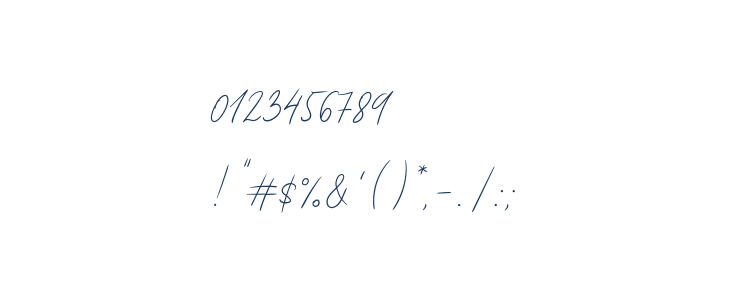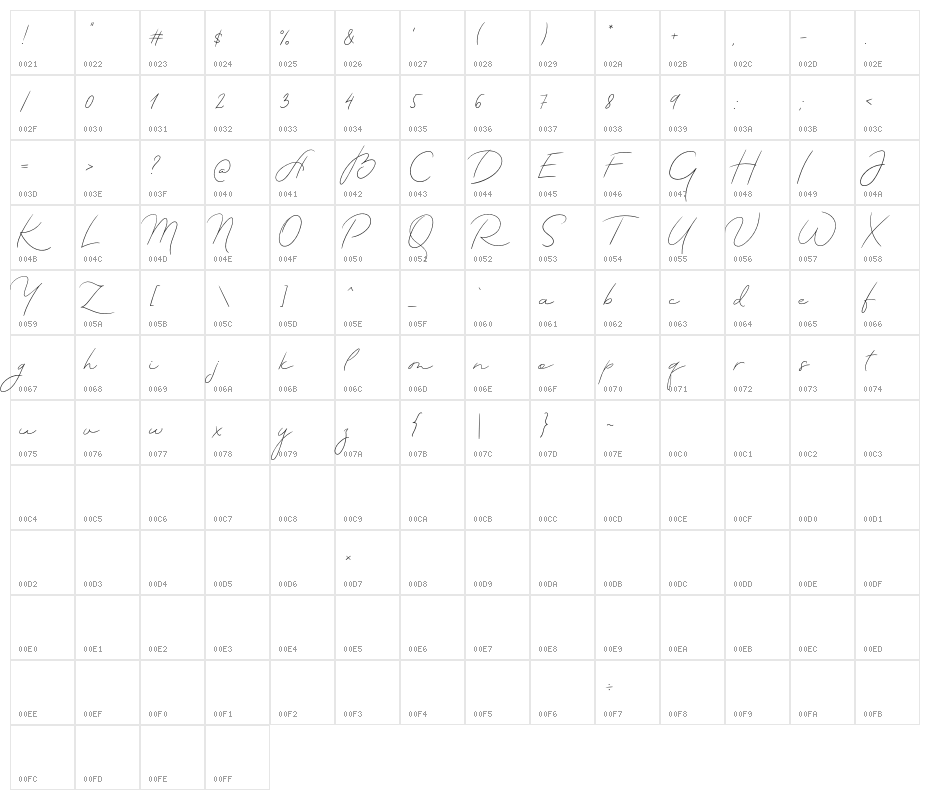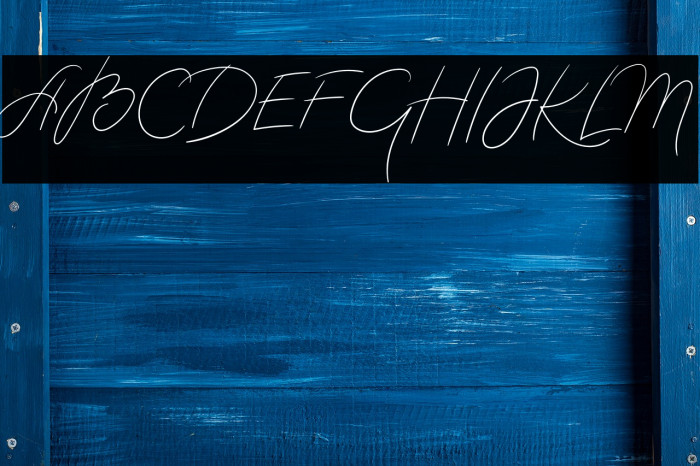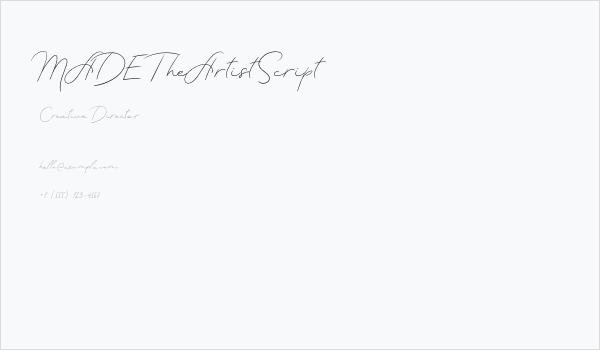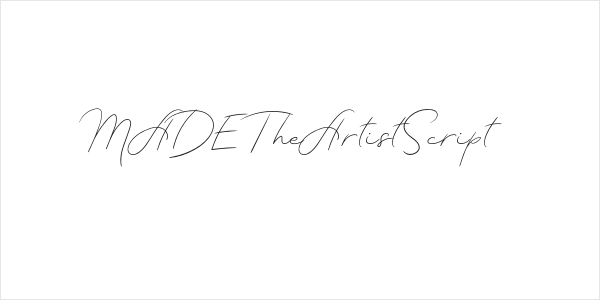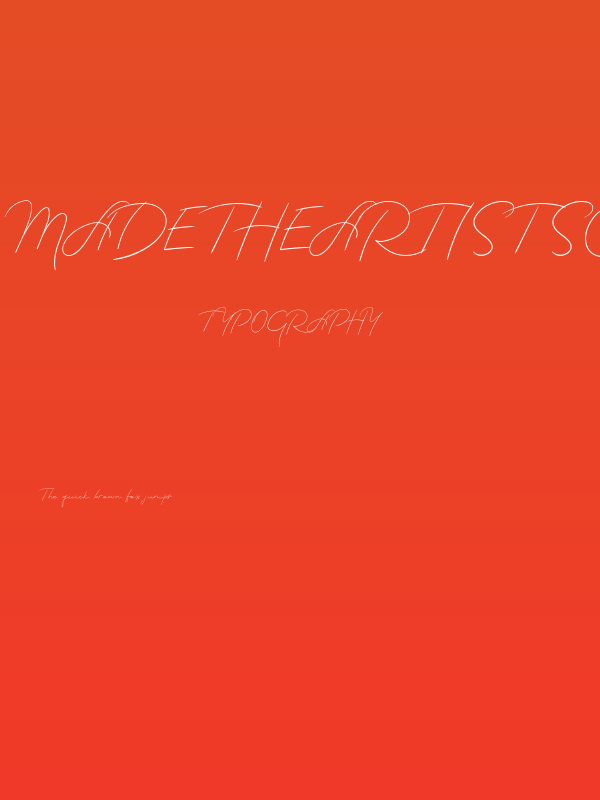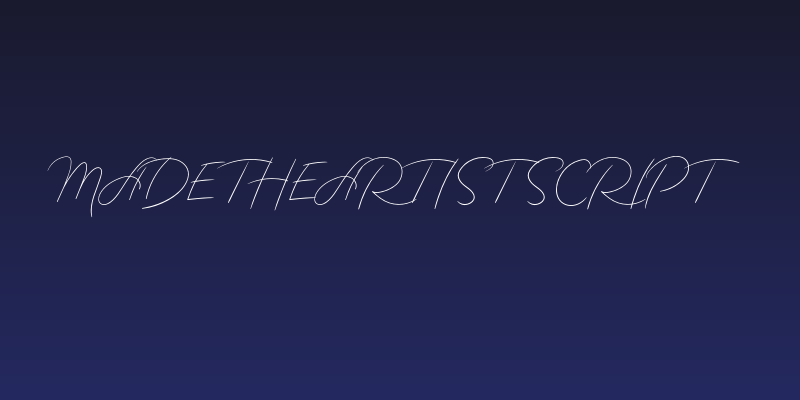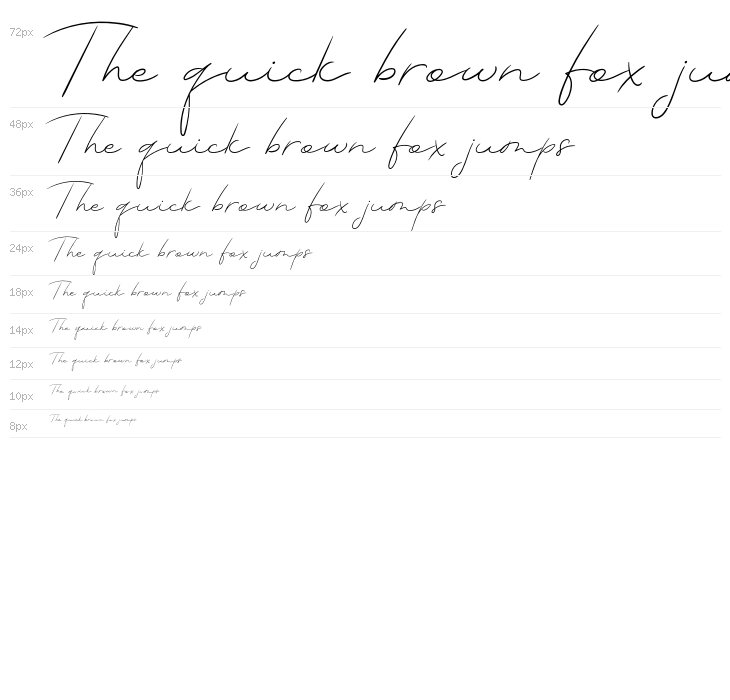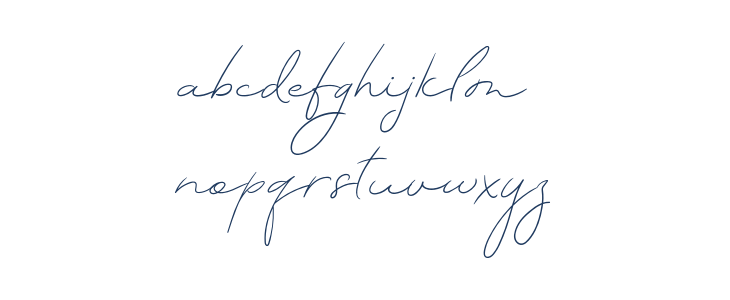
MADETheArtistScript Font
MADETheArtistScript Description
This script font exudes elegance and fluidity, characterized by its smooth, flowing lines and graceful curves. The uppercase letters are tall and slender, with a slight slant that adds a dynamic feel. The lowercase letters are more compact, maintaining a consistent flow that mimics natural handwriting. The numerals are distinct yet harmonize well with the overall style, while the special characters are crafted with the same attention to detail, ensuring versatility in various applications. The font's delicate strokes and refined appearance make it ideal for projects that require a touch of sophistication and personal flair.
| Overall Style | Elegant |
| Use Case | Logos, Invitations, Personal Branding |
| Proposed Projects | Ideal for wedding invitations, personal branding, greeting cards, and elegant packaging designs. |